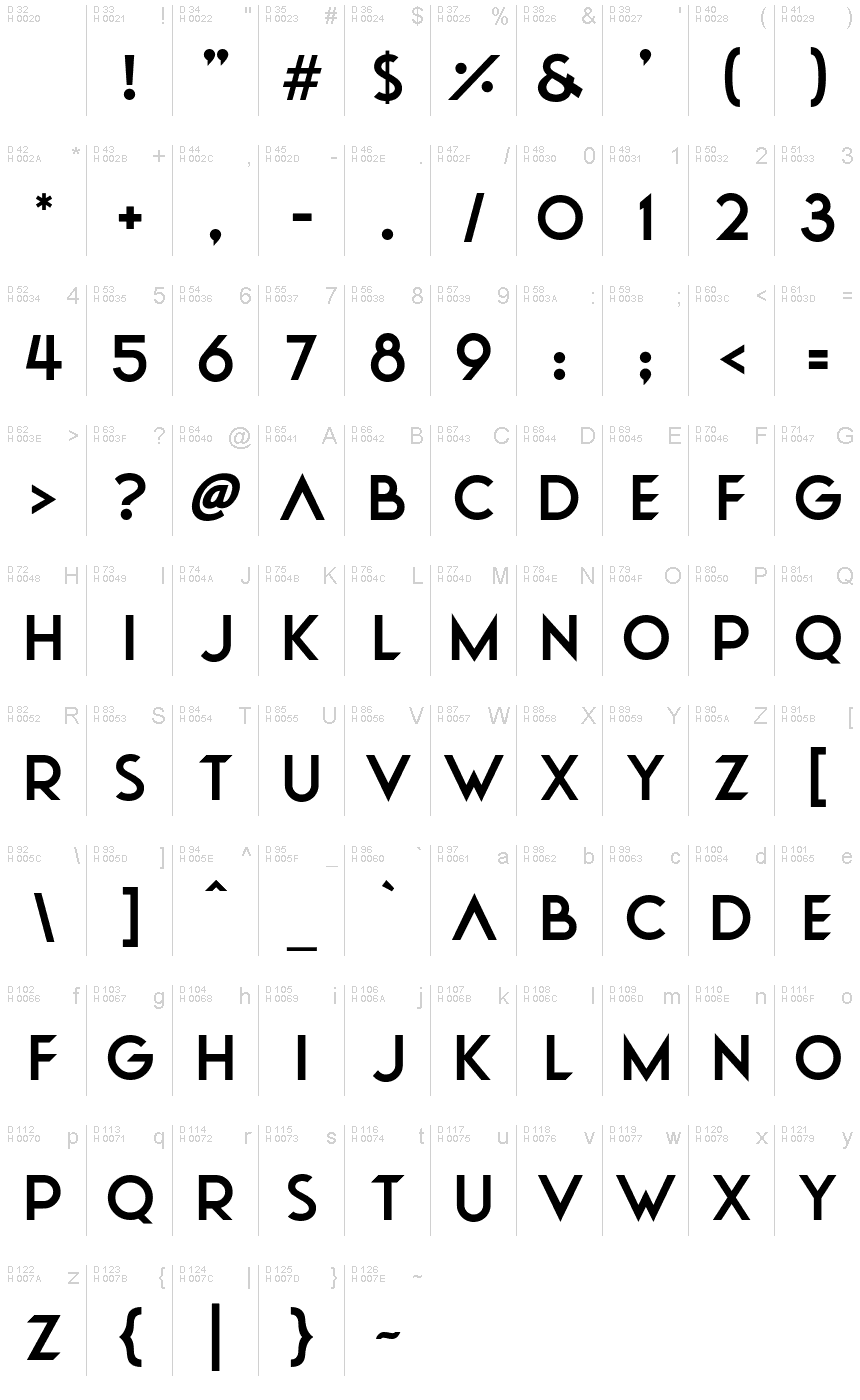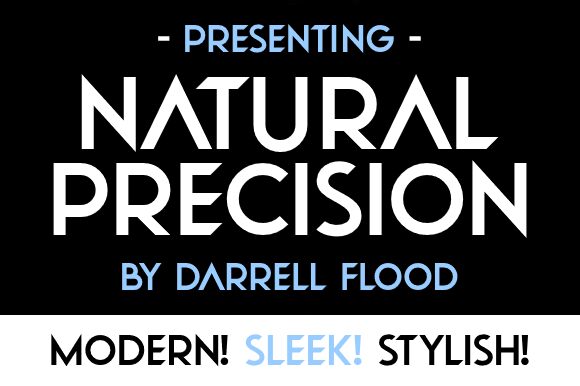
Natural Precision
Natural Precision, designed by Hawtpixel, is a sleek and modern sans-serif font that exudes a sense of crisp luxury. Its clean lines and precise letterforms make it an ideal choice for projects that require a sophisticated touch.
This versatile font is particularly well-suited for high-tech themes, where its sleek design can convey a sense of innovation and cutting-edge technology. Additionally, Natural Precision's sophisticated style makes it perfect for fashion titles, adding an element of elegance and refinement to any design.
Whether you're creating a website, designing promotional materials, or crafting eye-catching advertisements, Natural Precision is the font that will elevate your project to the next level.